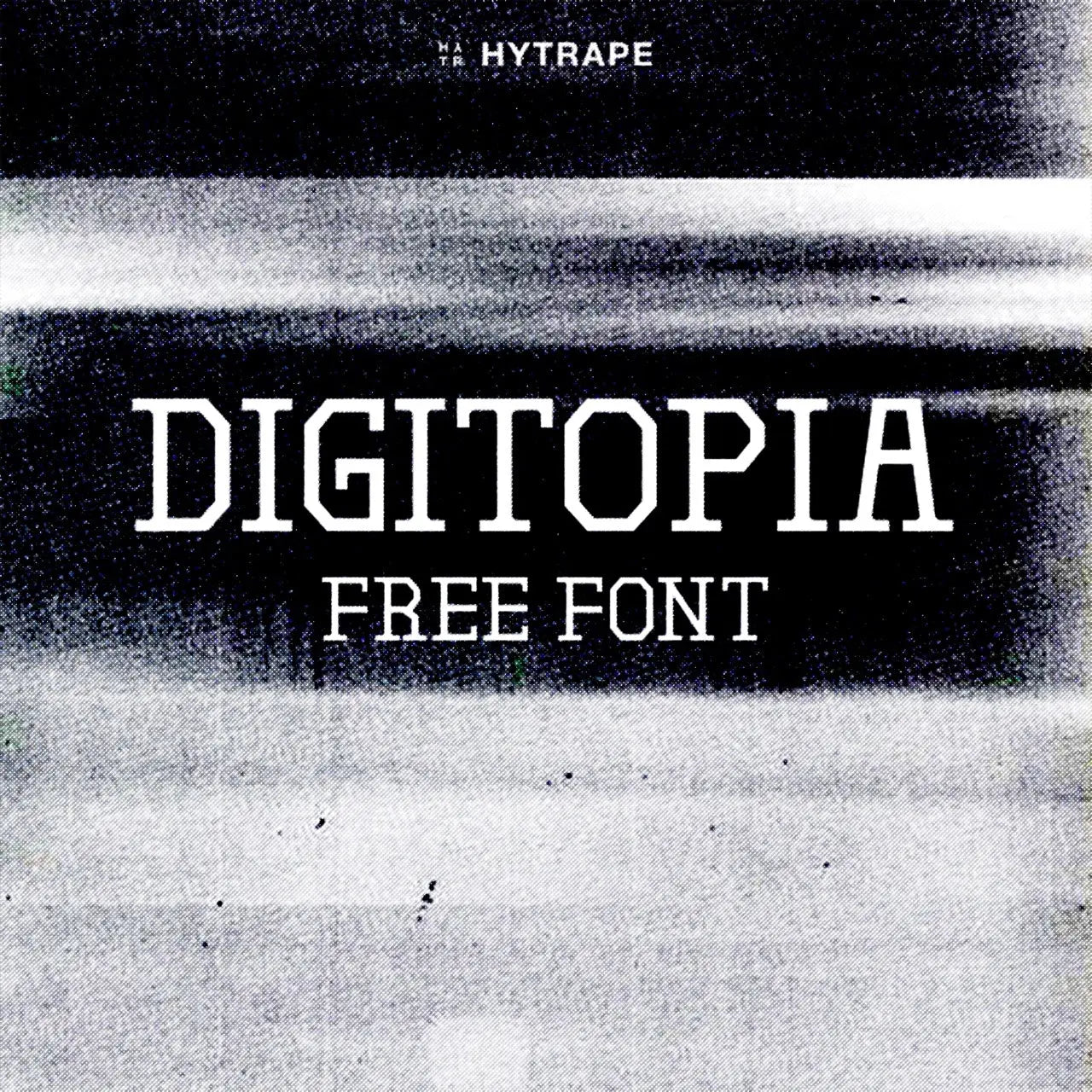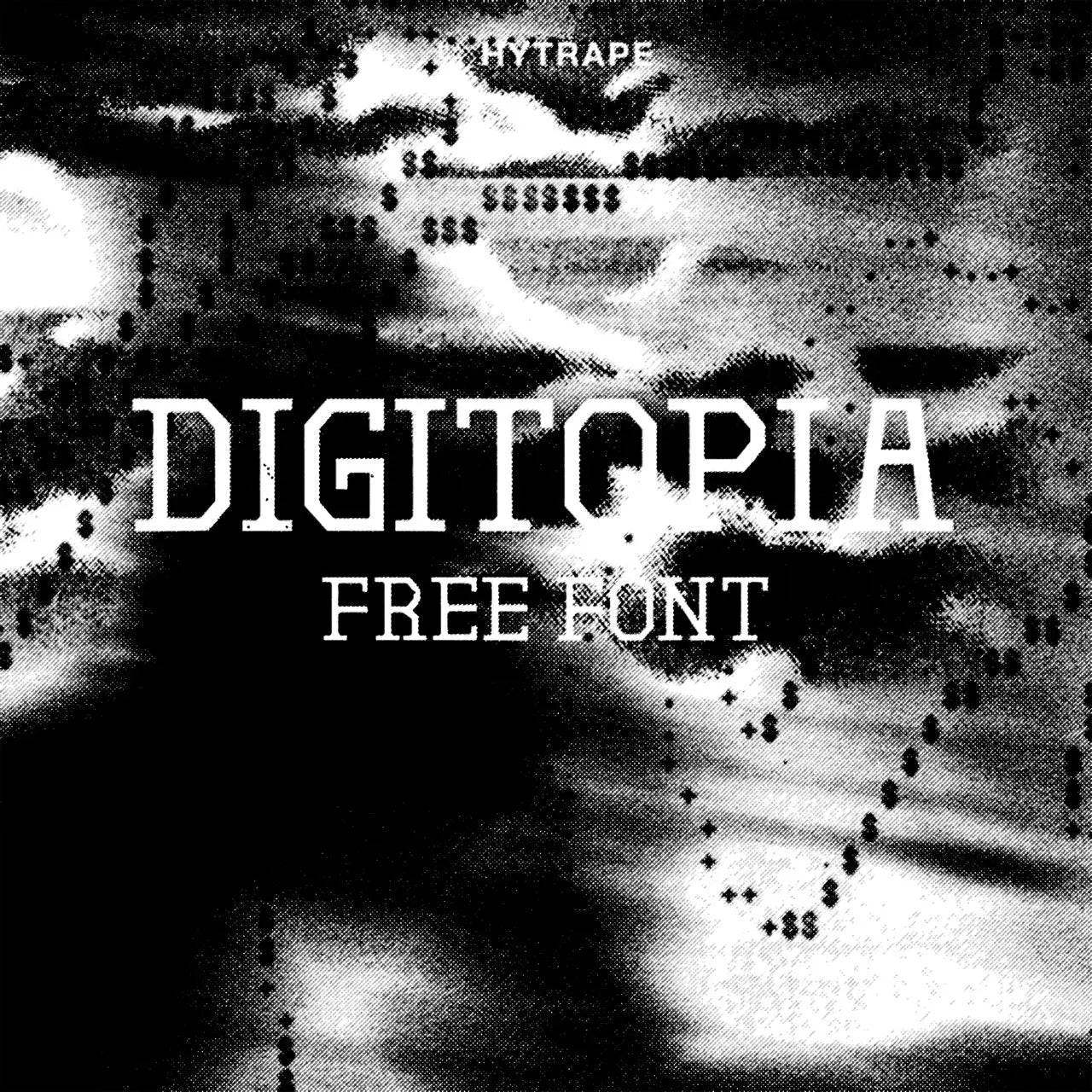
Digitopia is a tall, narrow slab-serif font with a technical style. For restrained headlines with a digital feel.
DIGITOPIA FONT (FREE) is an experimental font designed for professionals looking for unique and original typography.Customer reviews